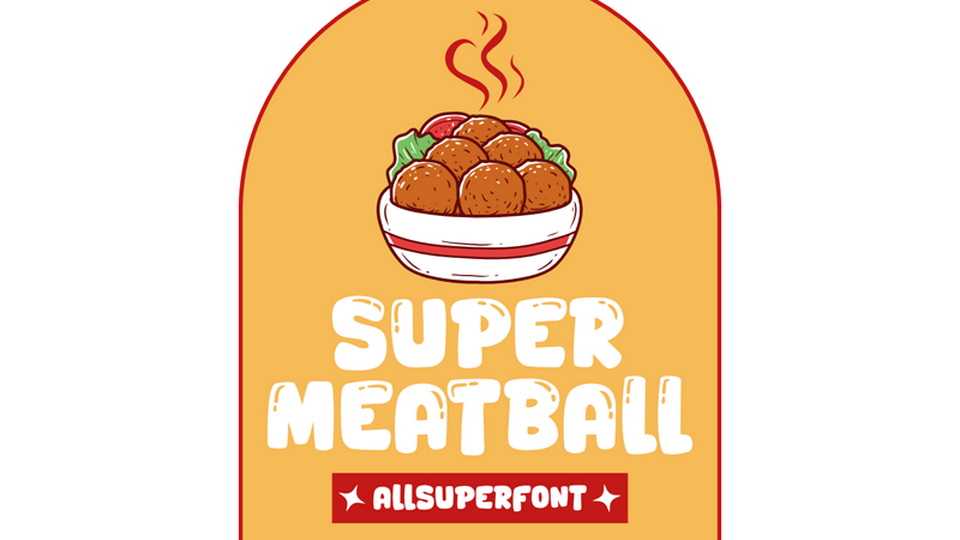
Download Super Meatball font, a chunky, hand-crafted display typeface with a bold silhouette and playful imperfections. Its rounded forms and slightly irregular strokes give it a lively, organic feel.